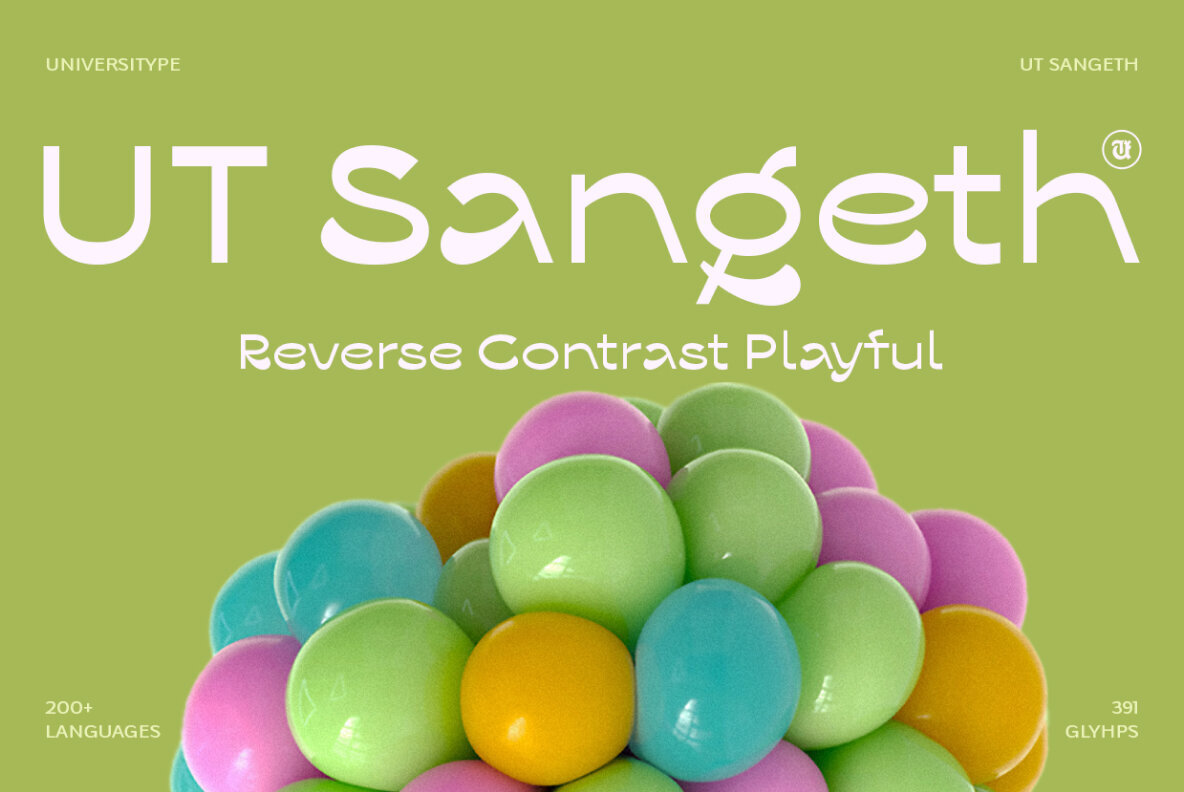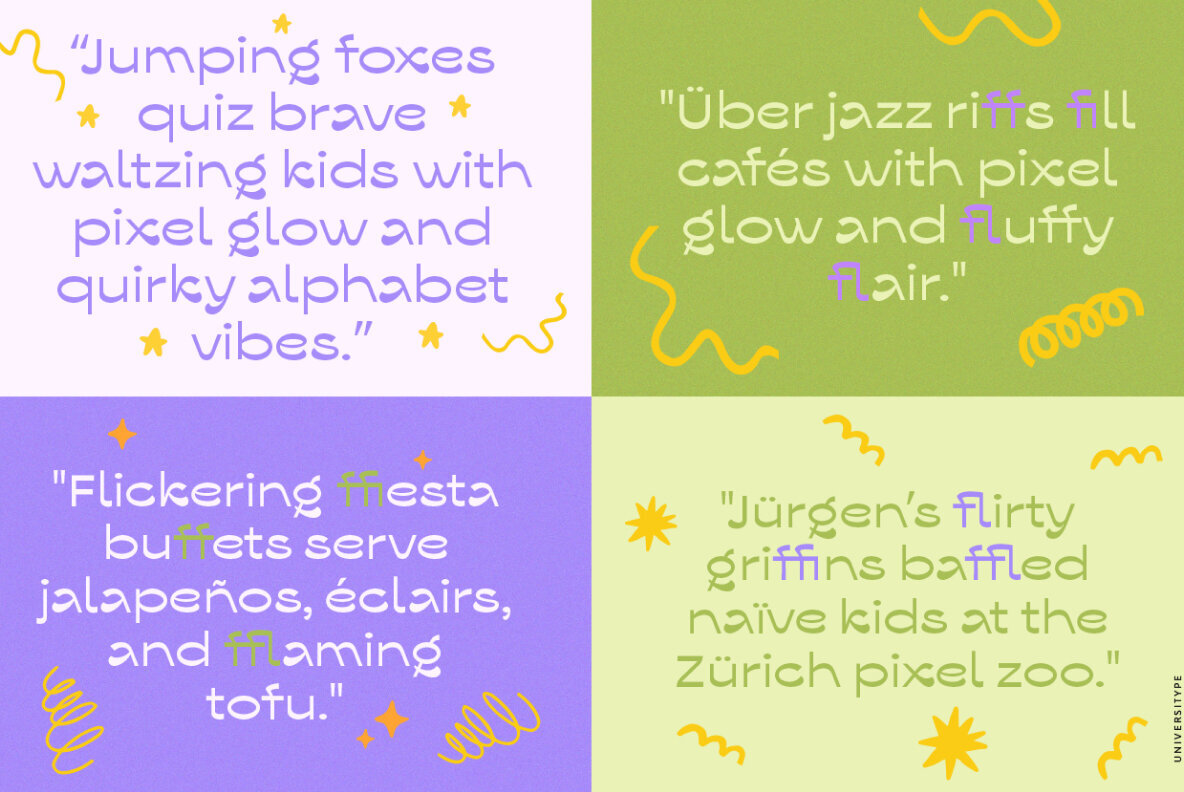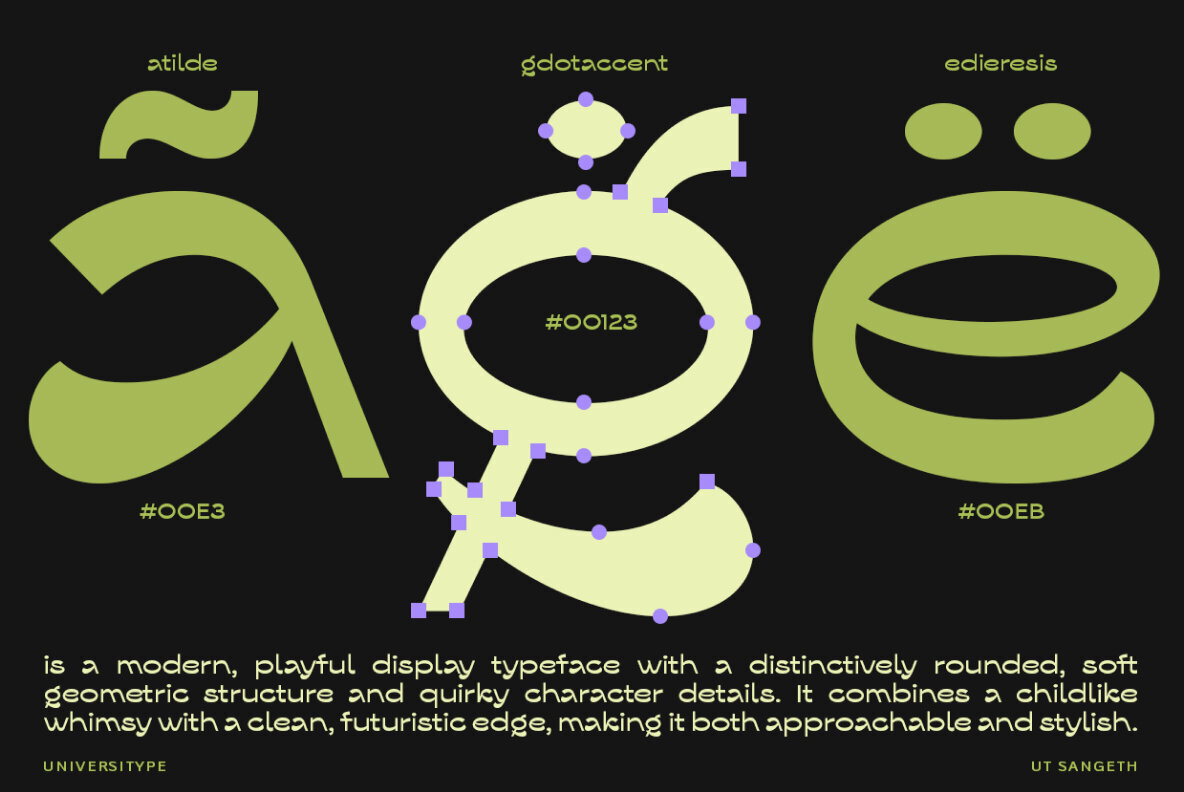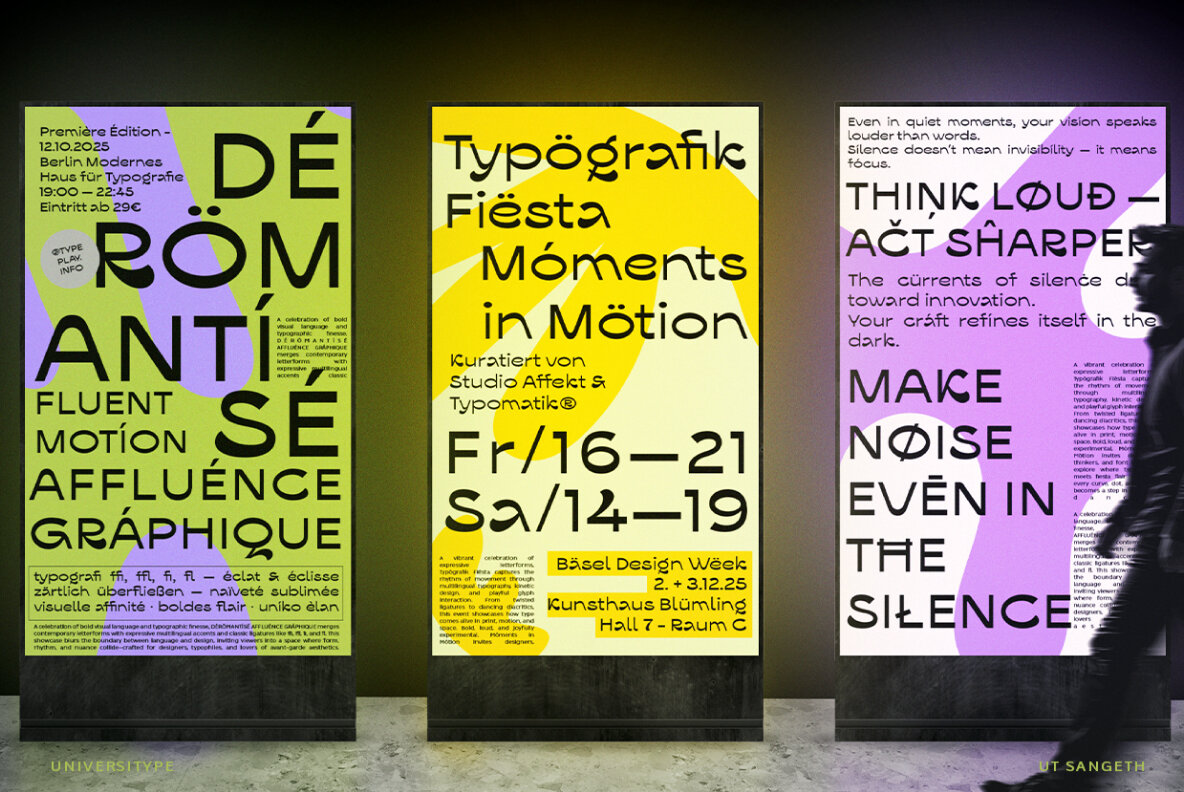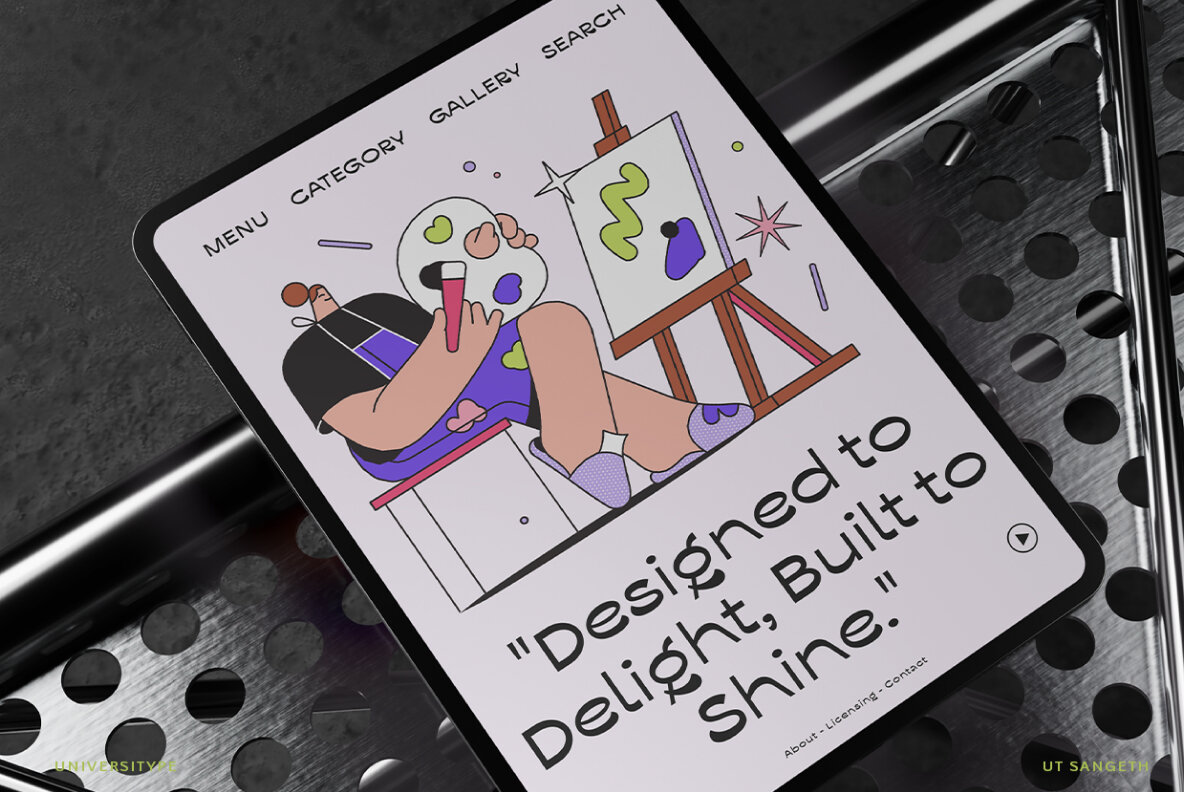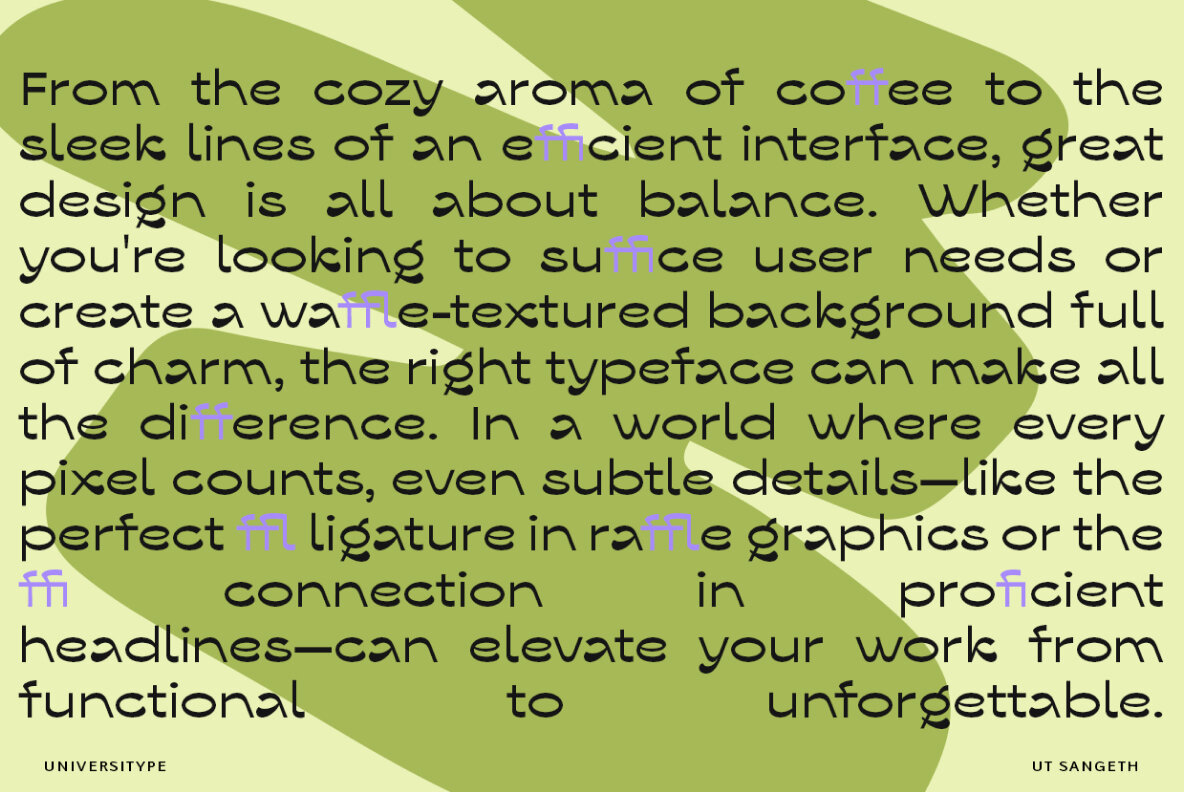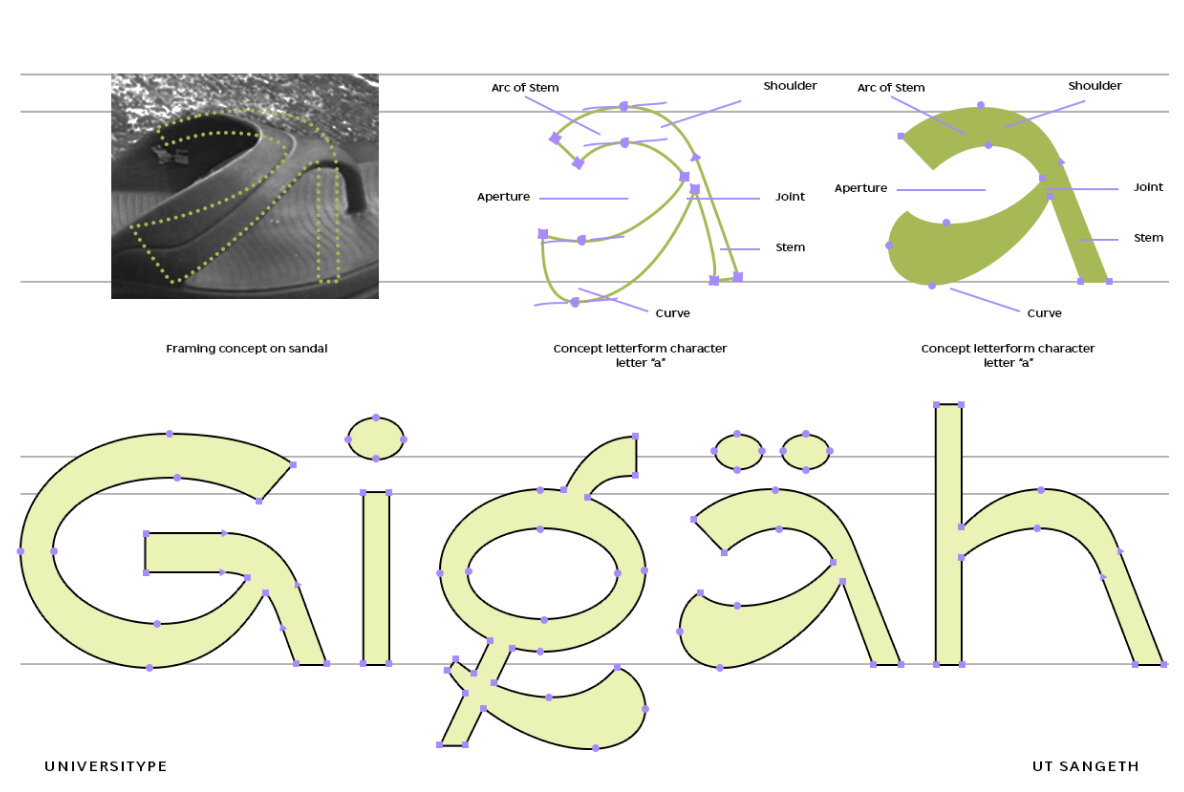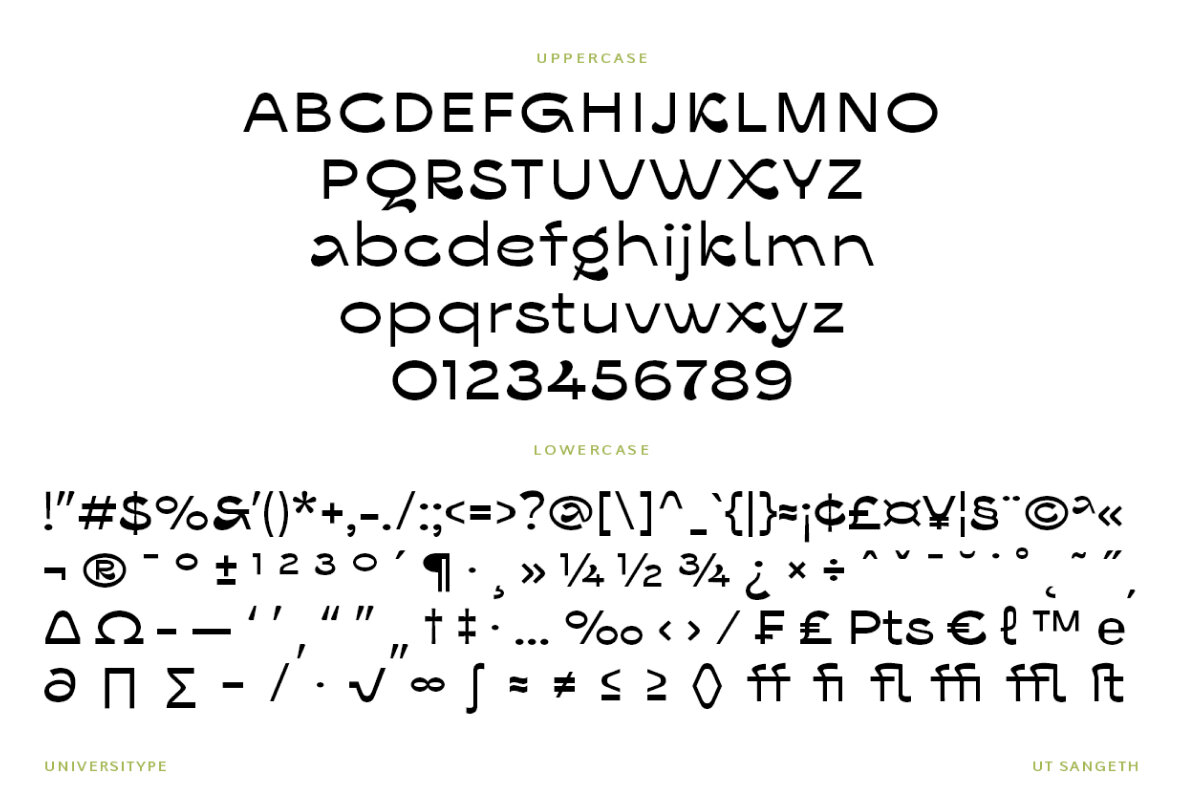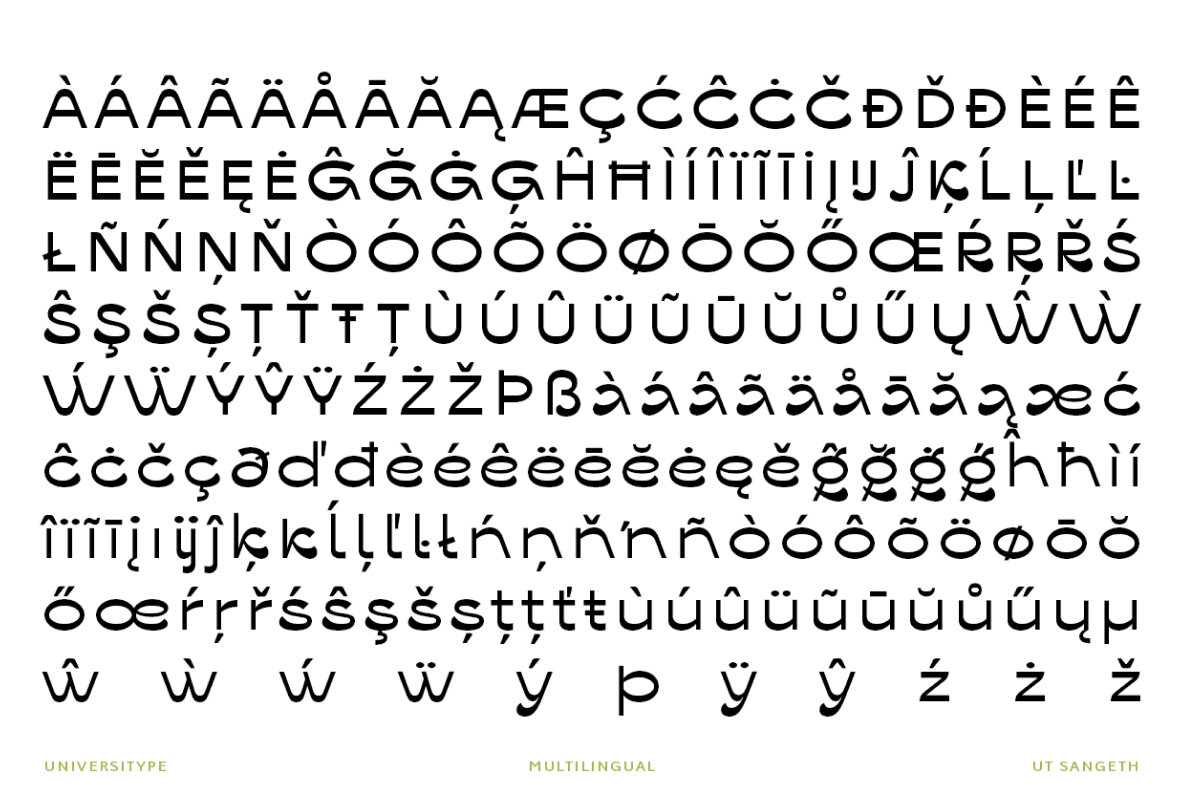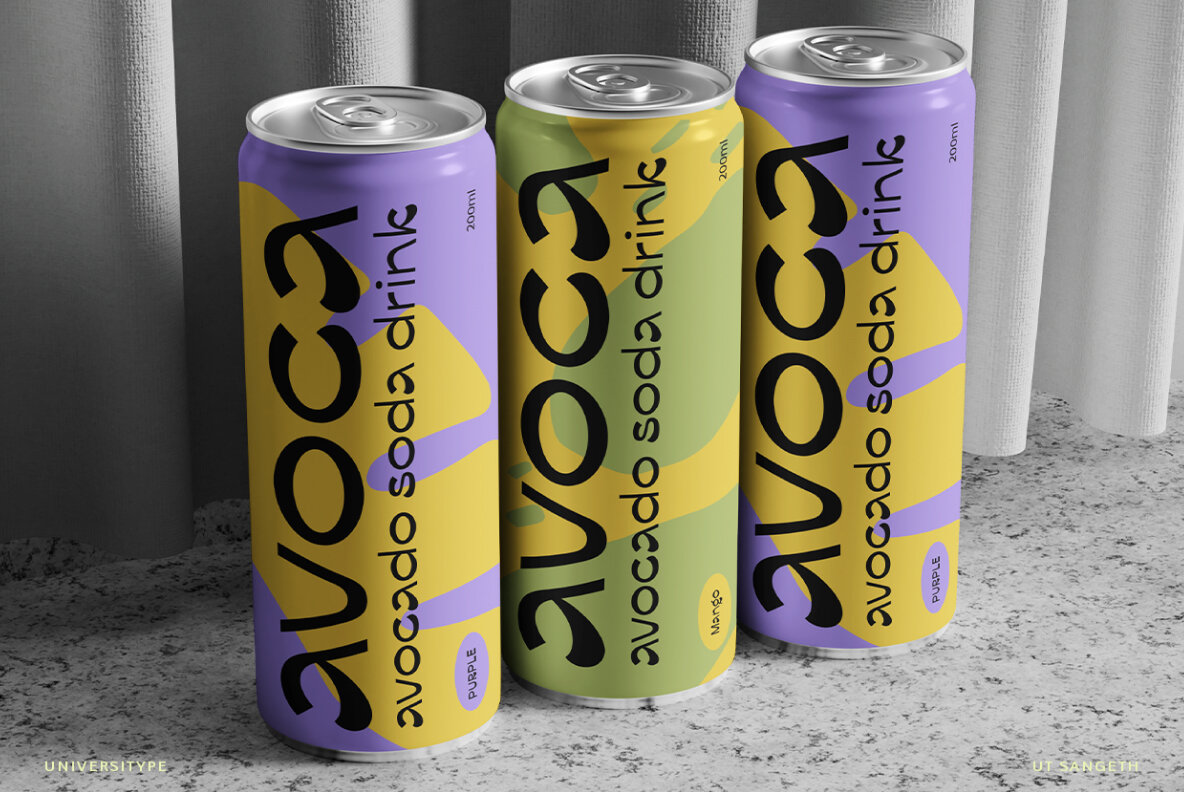
UT Sangeth offers a modern, eye-catching typeface, marrying childlike whimsy with a sleek futuristic twist. Featuring a rounded, soft geometric structure, it presents quirky character details that bring a friendly yet refined aesthetic. This playful font is ideal for creating compelling visuals that capture attention, making it a perfect choice for projects needing a touch of unique personality. This typeface appeals to graphic designers, branding agencies, marketers, web designers, and any professional looking to inject distinctiveness into their projects. Ideal for initiatives aimed at creative, youthful, or innovative audiences seeking standout typography. Inspired by blending the unexpected with the familiar, UT Sangeth explores "reverse contrast" to generate visual intrigue while maintaining a friendly allure. Its rounded shapes and playful details stem from the whimsical essence of childhood, marrying design with meticulous observation and creativity. Elements like the "Arc of Stem," "Joint," and "Curve" evidence the depth of consideration given to every facet of this typeface's anatomy, each helping to craft its unique visual identity.UT Sangeth: Playful Display Typeface with Rounded Geometry